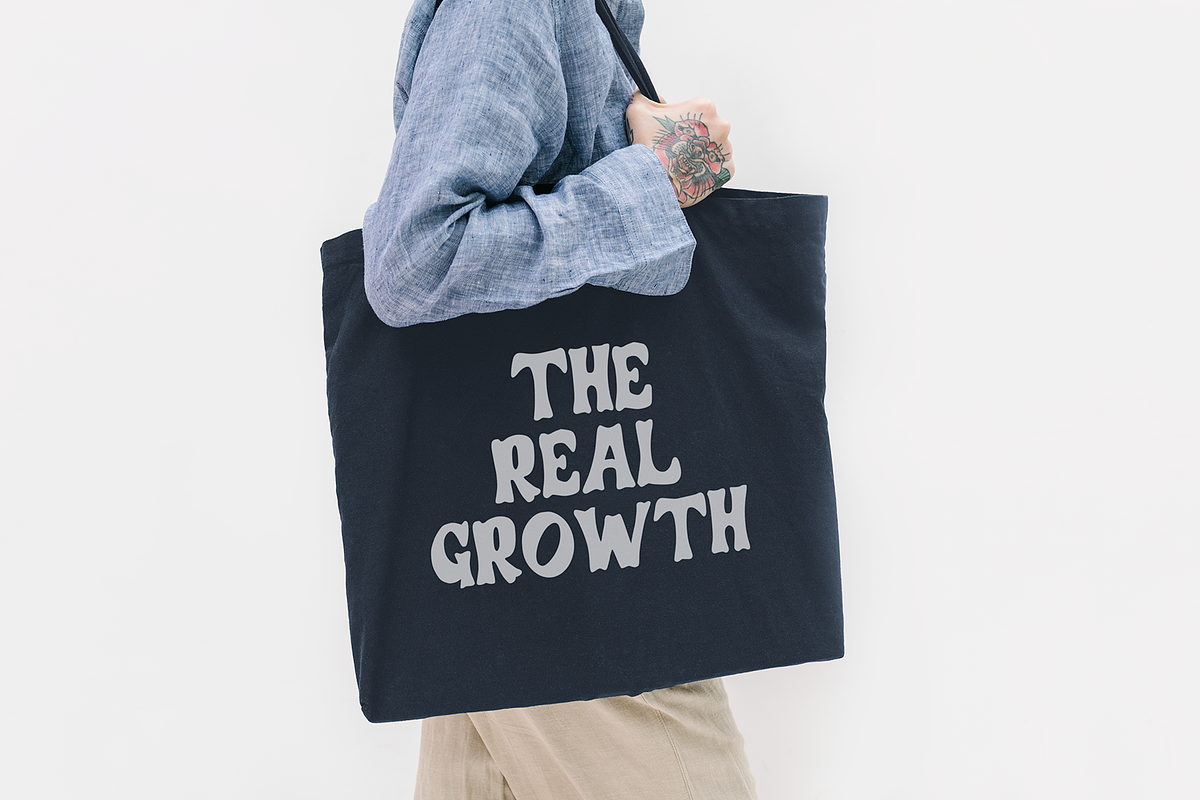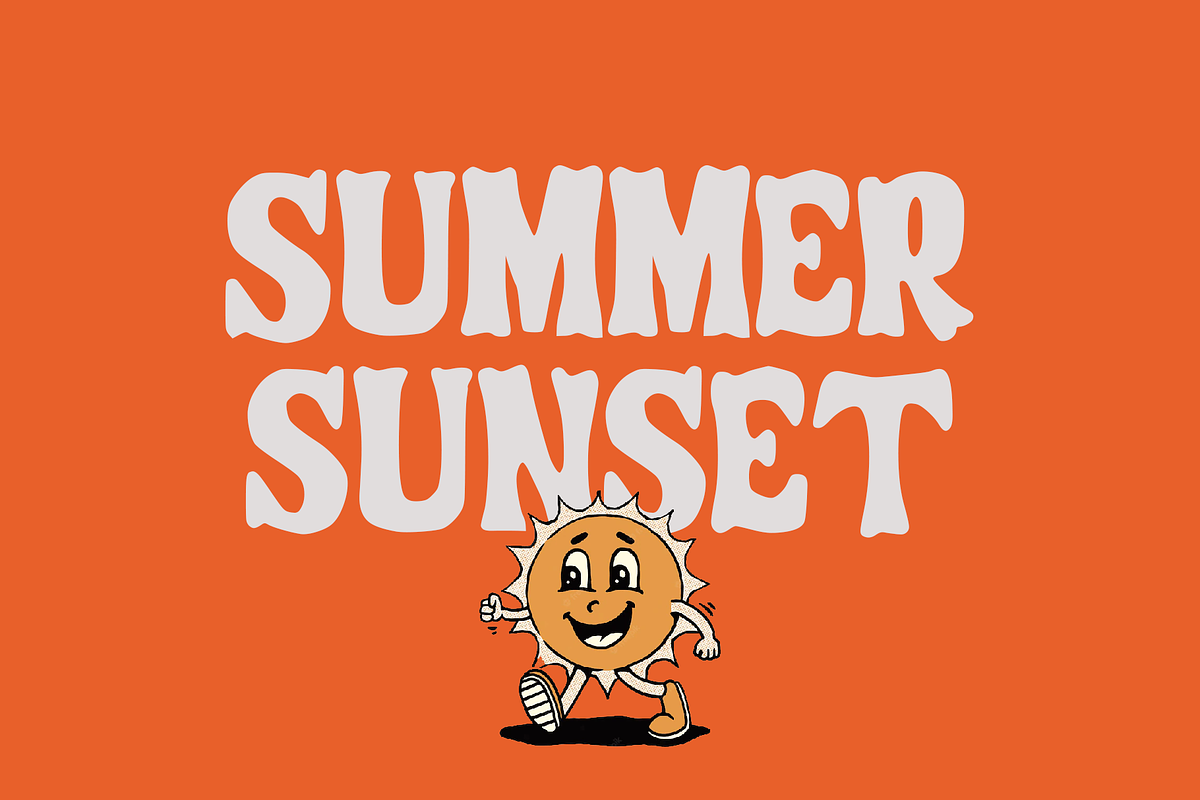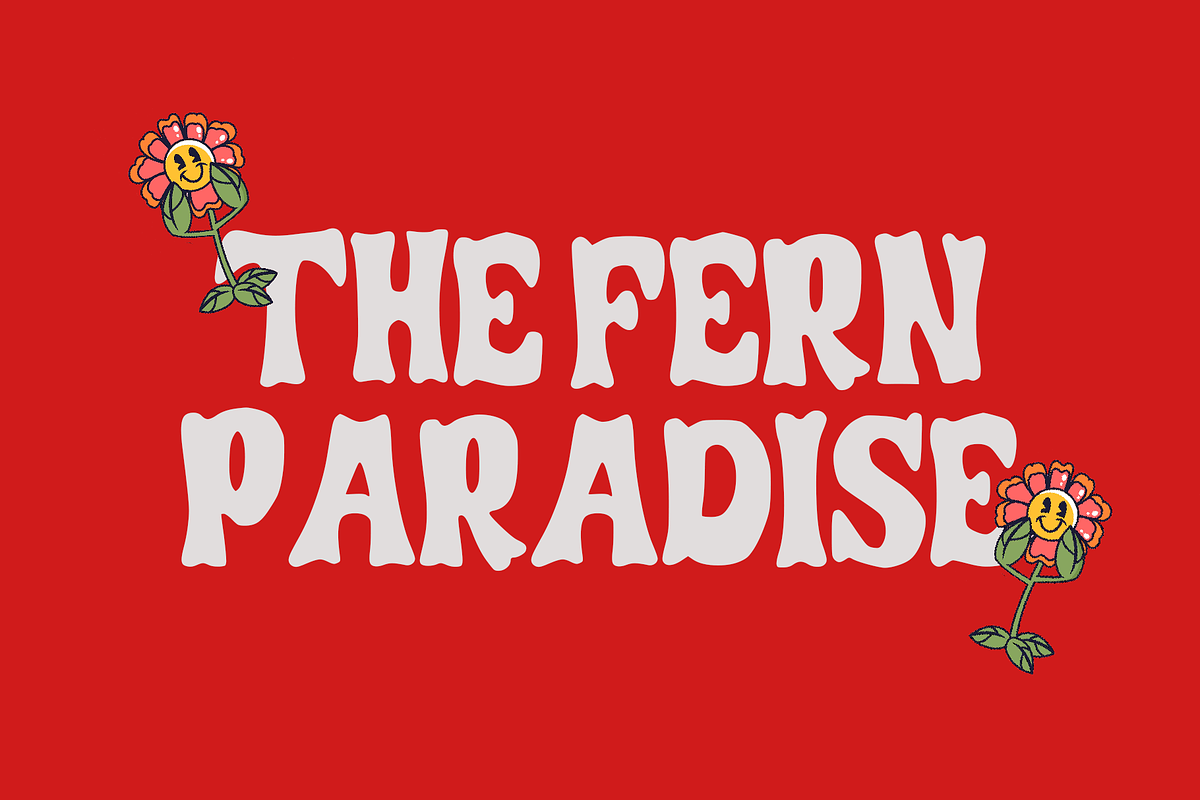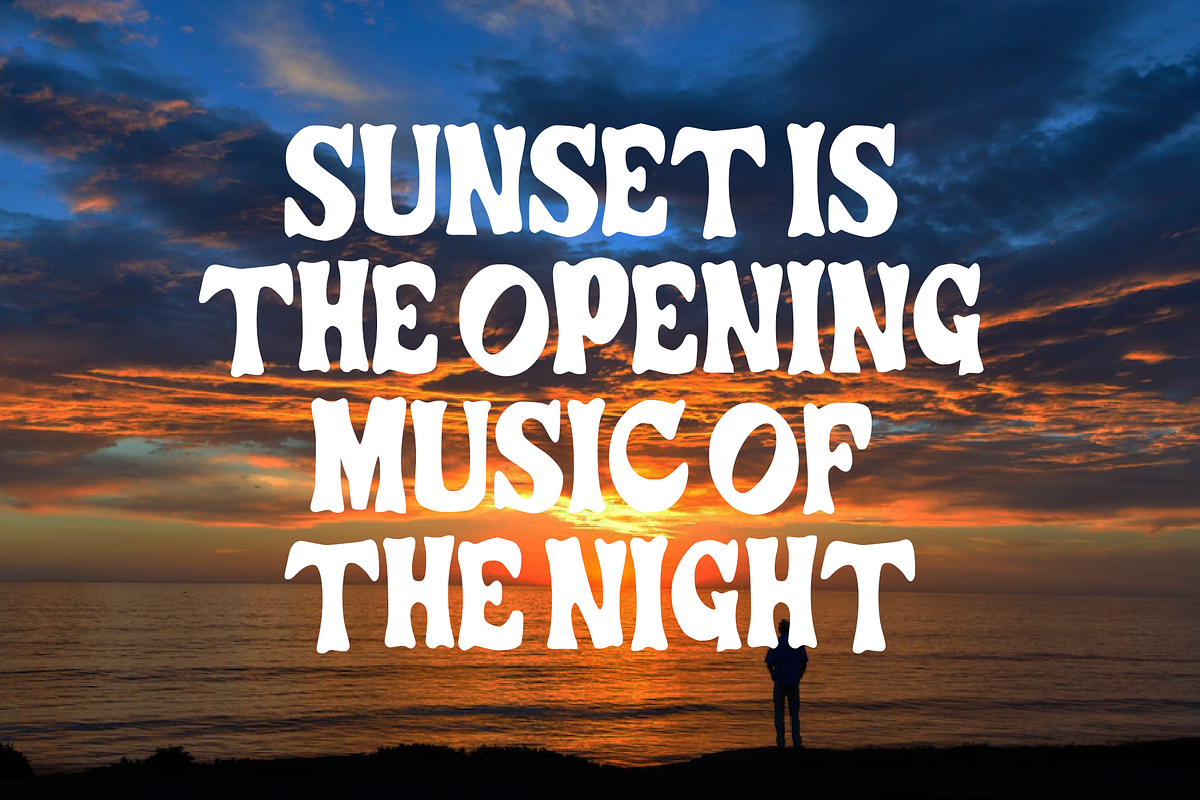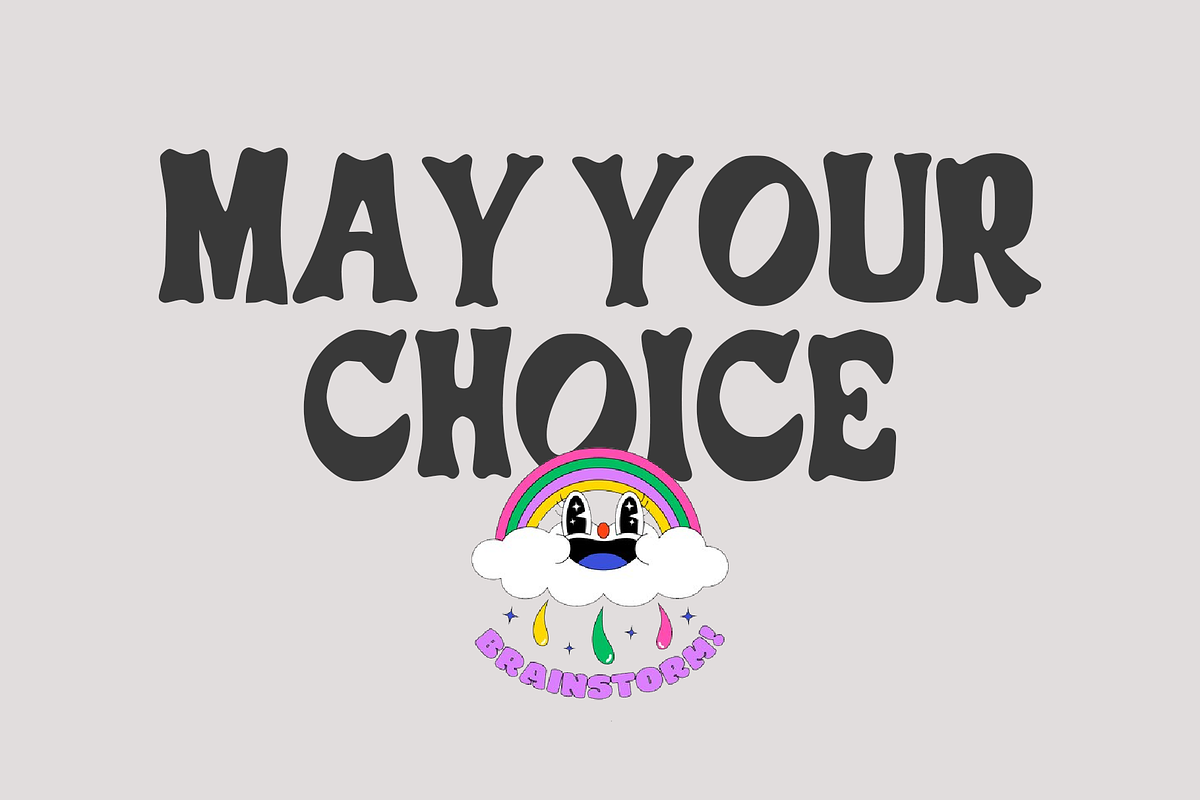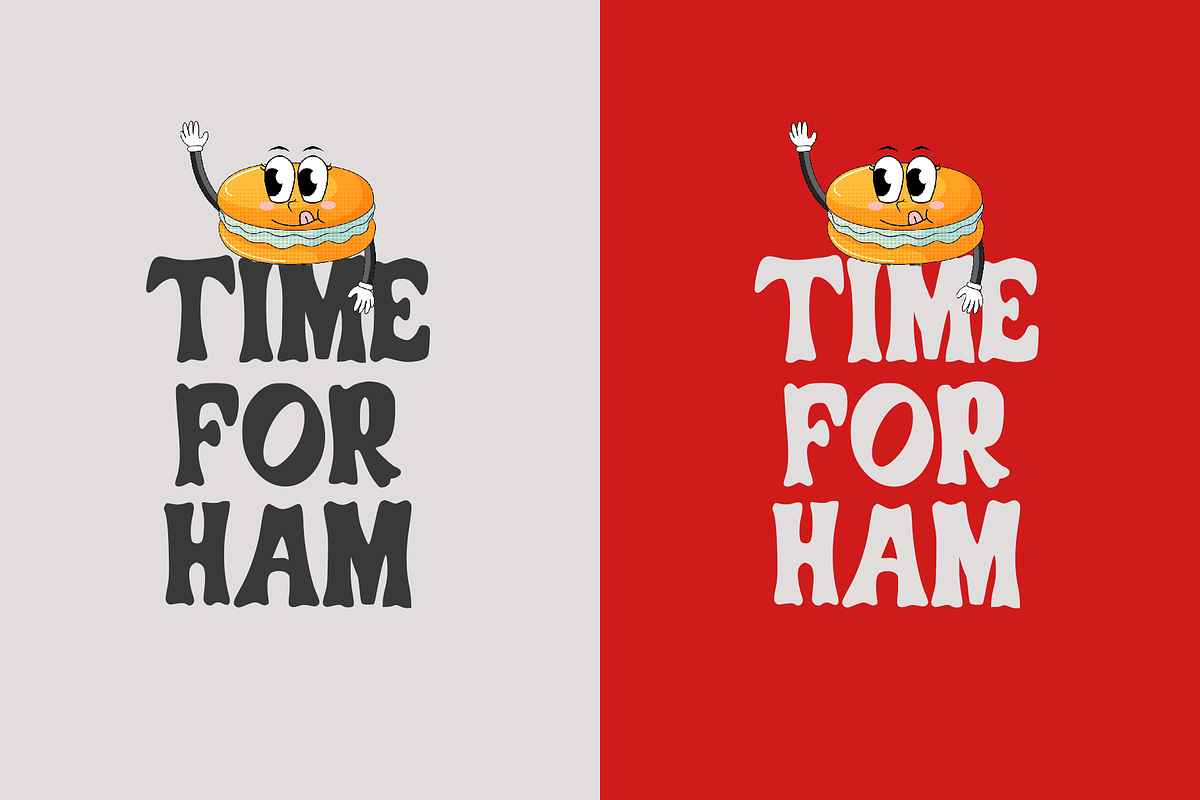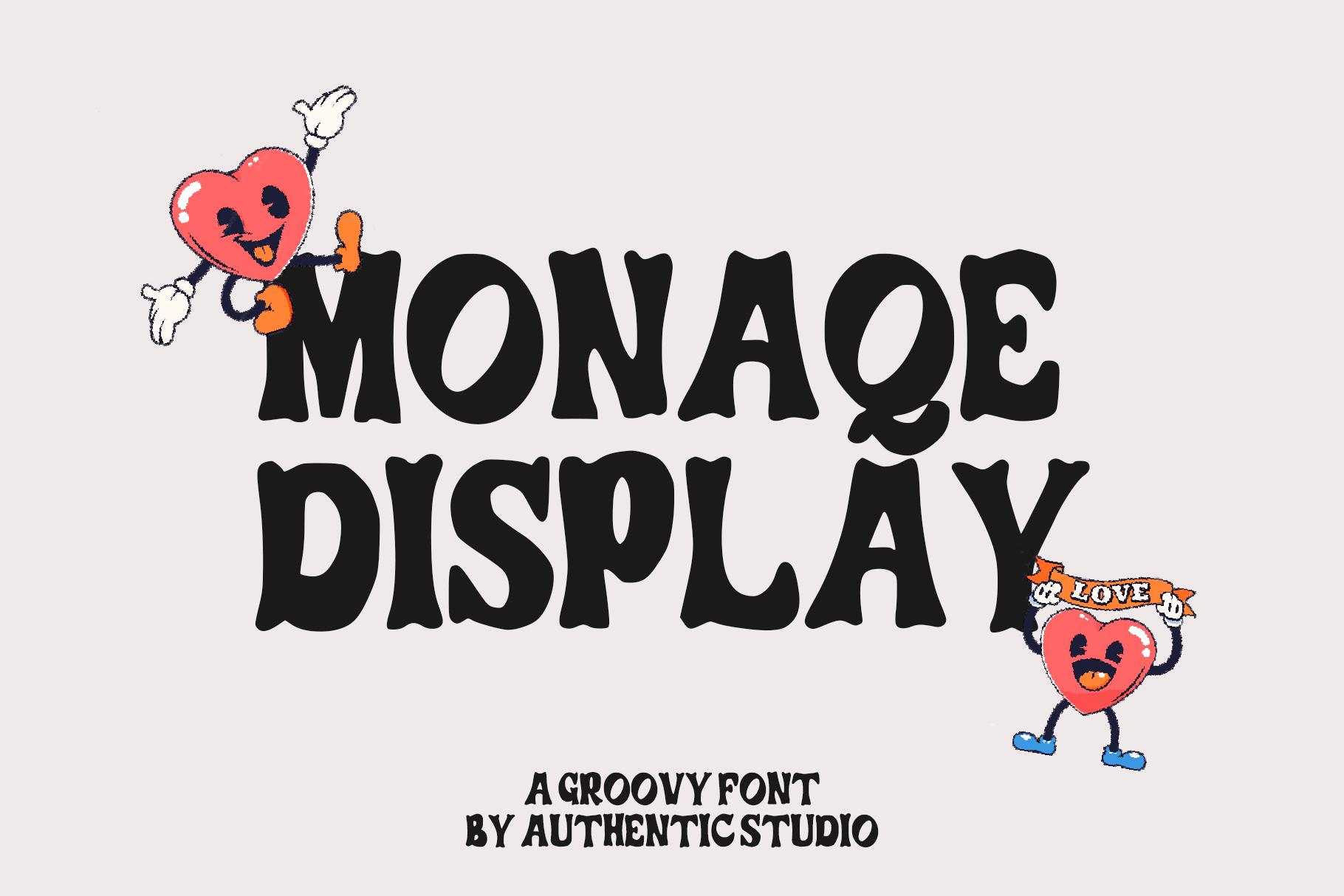
Monaqe Groovy Font
Monaqe Groovy Font is a retro groovy all-caps display font. Whether you’re using it for crafts, digital design, presentations, or making greeting cards, this font has the potential to become your favorite go-to font, no matter the occasion!